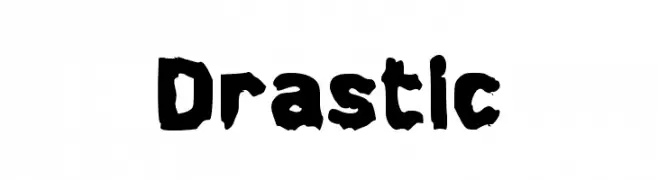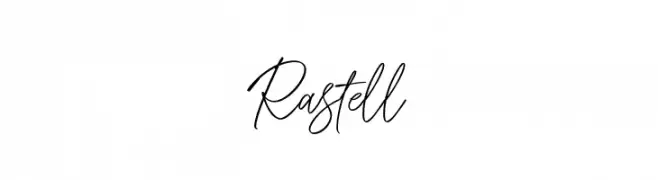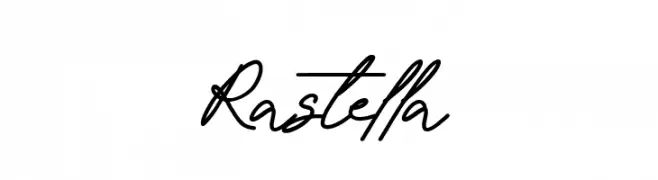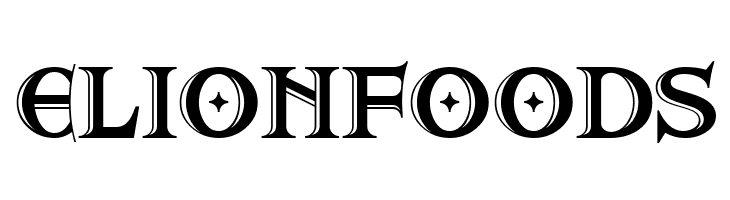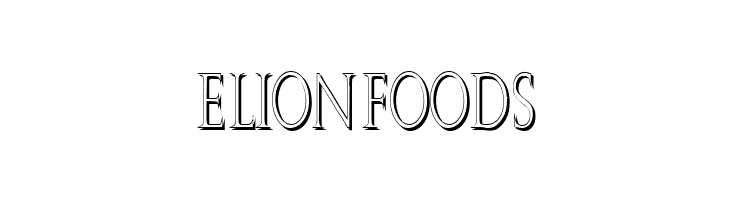
( Fonts by Graham Meade - GemFonts )
A bold, three-dimensional font with angular, geometric shapes and strong contrast.
( Fonts by Nick Curtis - www.nicksfonts.com )
A high-contrast, modern-vintage font with bold uppercase and elegant lowercase letters.
( Fonts by Christine Mauerkirchner and Rainer Grunert - PrimaFont )
An elegant script font with flowing, cursive letterforms and high contrast.
( Fonts by dustBUST - Andreas Nylin )
A bold, italicized font with high contrast and a modern, dynamic style.
( Fonts by Paul Lloyd )
A classic serif font with high contrast and elegant, pointed serifs.
( Fonts by ShyFonts )
A bold, geometric font with a futuristic inline style and strong contrast.
( Fonts by Nick Curtis - www.nicksfonts.com )
A bold, decorative font with high contrast and unique cut-out elements.
( Fonts by Peter Stanton )
A whimsical and decorative font with playful embellishments and high contrast strokes.
( Fonts by Altsys Metamorphosis )
A bold, decorative font with high contrast and a unique, artistic style.
A bold, distressed font with a grunge texture and high contrast.
( Fonts by Jonathan Smith )
A bold, italicized font with high contrast and dynamic slant.
( Fonts by ShyFonts )
A bold, dripping font with a gothic flair and high contrast strokes.
( Fonts by antoniorodriguesjr.com )
A classic serif font with high contrast and elegant curves.